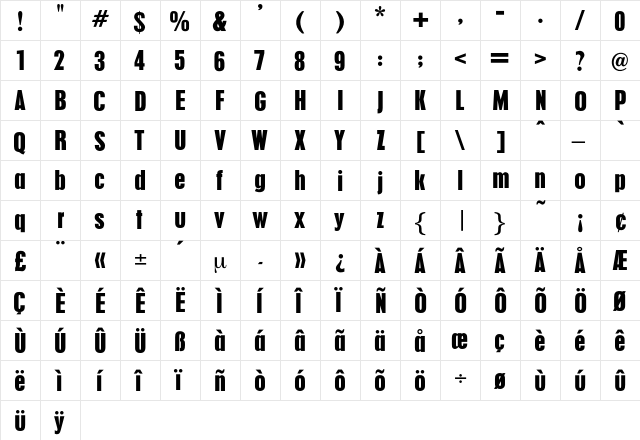
Cupido Regular
Design Context for Cupido Typeface
Cupido is a composed and adaptable typeface that performs quietly and consistently across a wide range of design contexts.